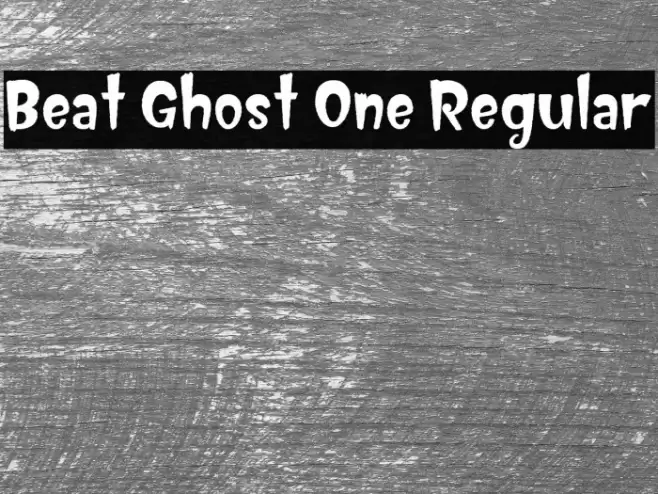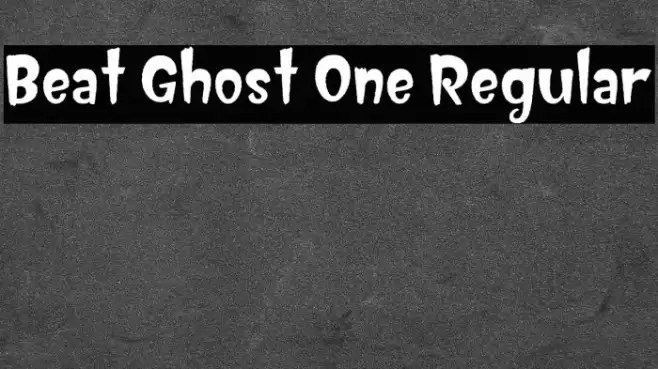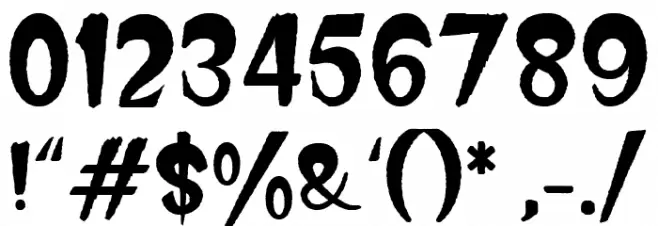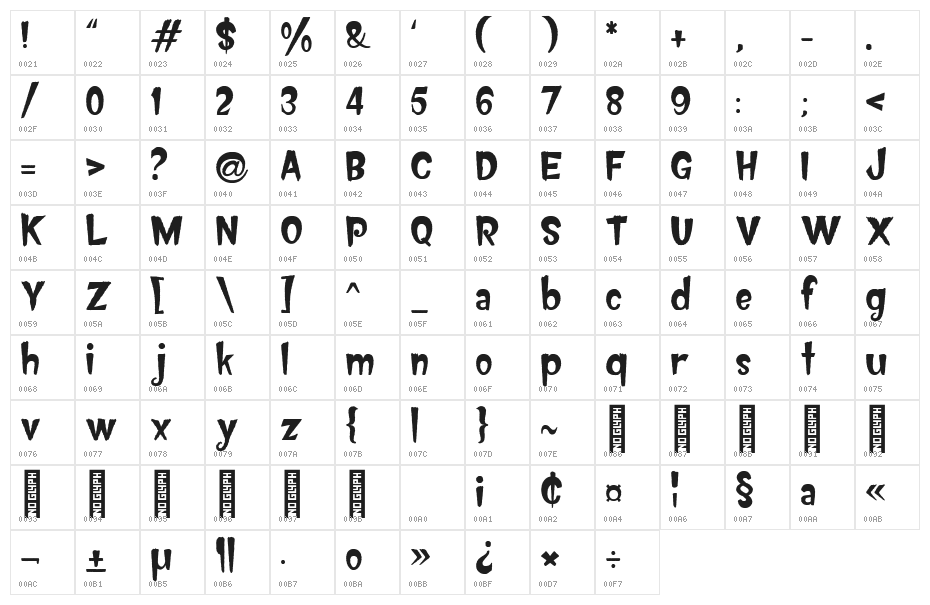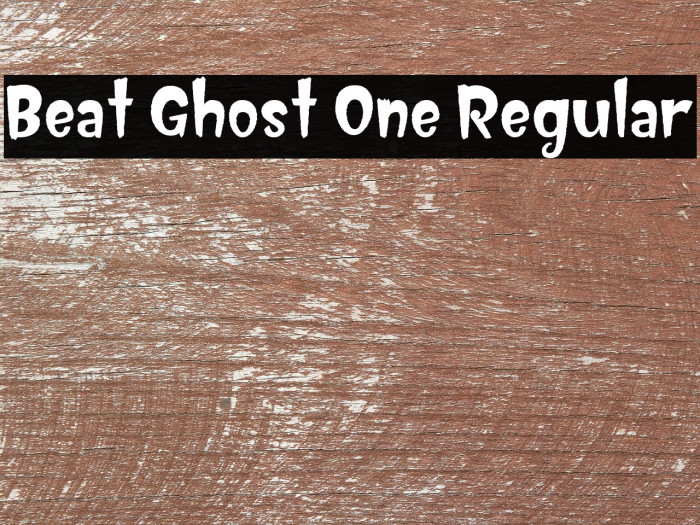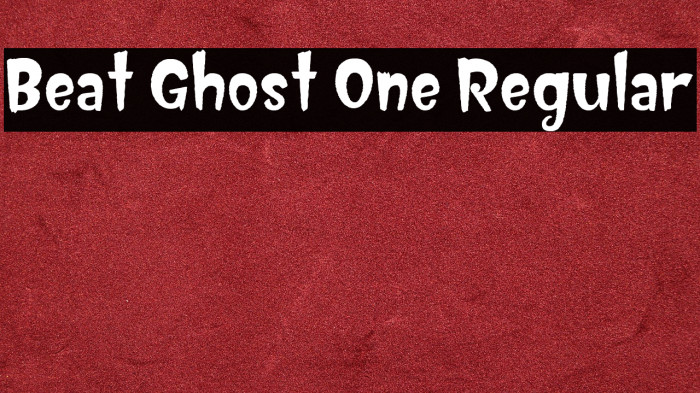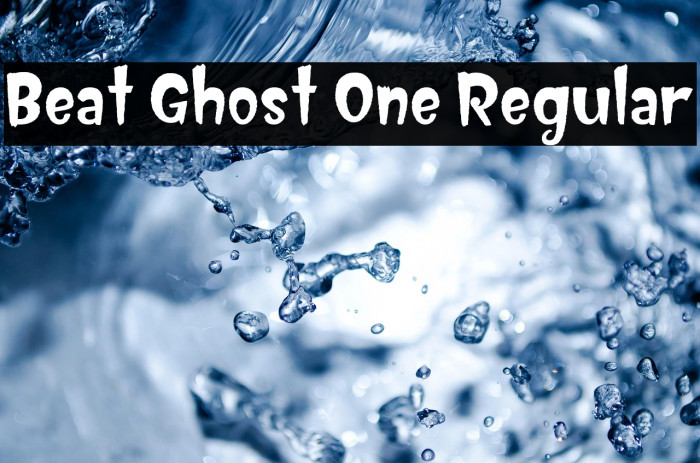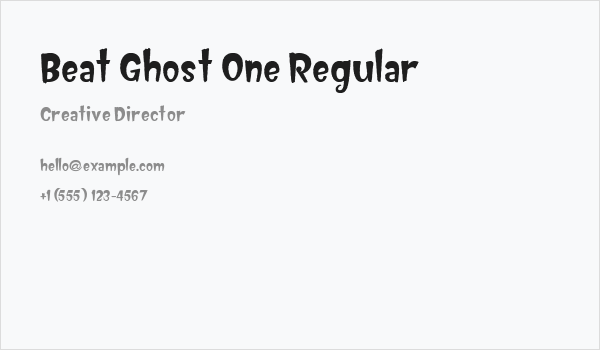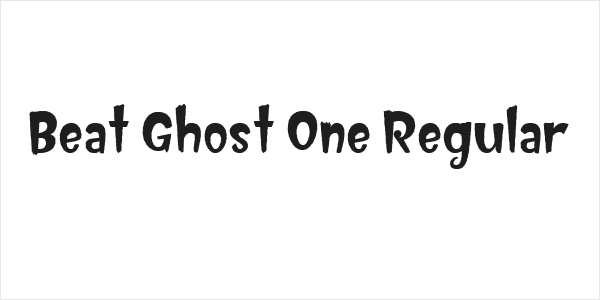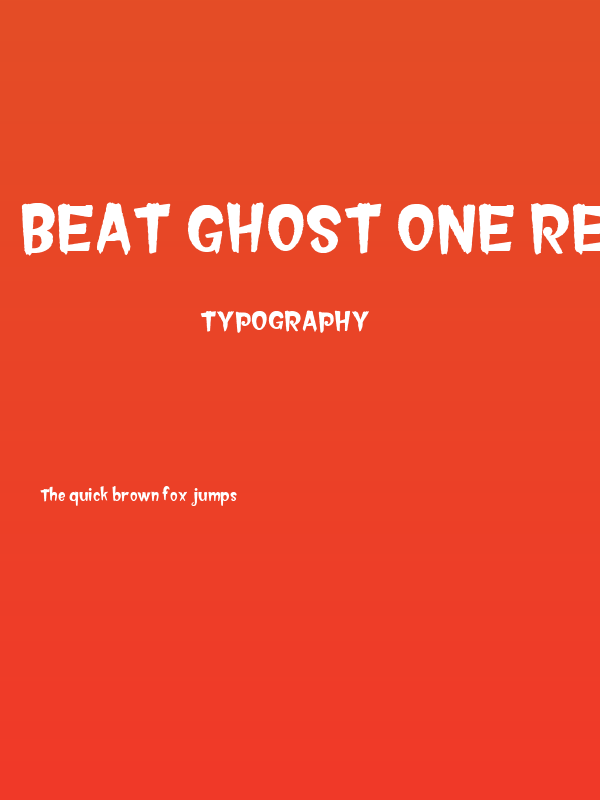
Beat Ghost One Regular Font
Beat Ghost One Regular Description
This font features a bold and expressive style with a hand-drawn appearance. The letters have irregular edges, giving them a dynamic and lively feel. The uppercase and lowercase characters maintain a consistent height, while the numbers and special characters complement the overall design. The strokes are thick and uneven, adding to the font's playful and artistic nature. This font is perfect for projects that require a creative and informal touch, such as posters, invitations, or branding materials that aim to stand out with a unique and personal flair.
A bold, hand-drawn font with an expressive and dynamic style from Regular fonts.
- Proposed Projects: Ideal for posters, invitations, branding, and creative projects seeking a unique touch.